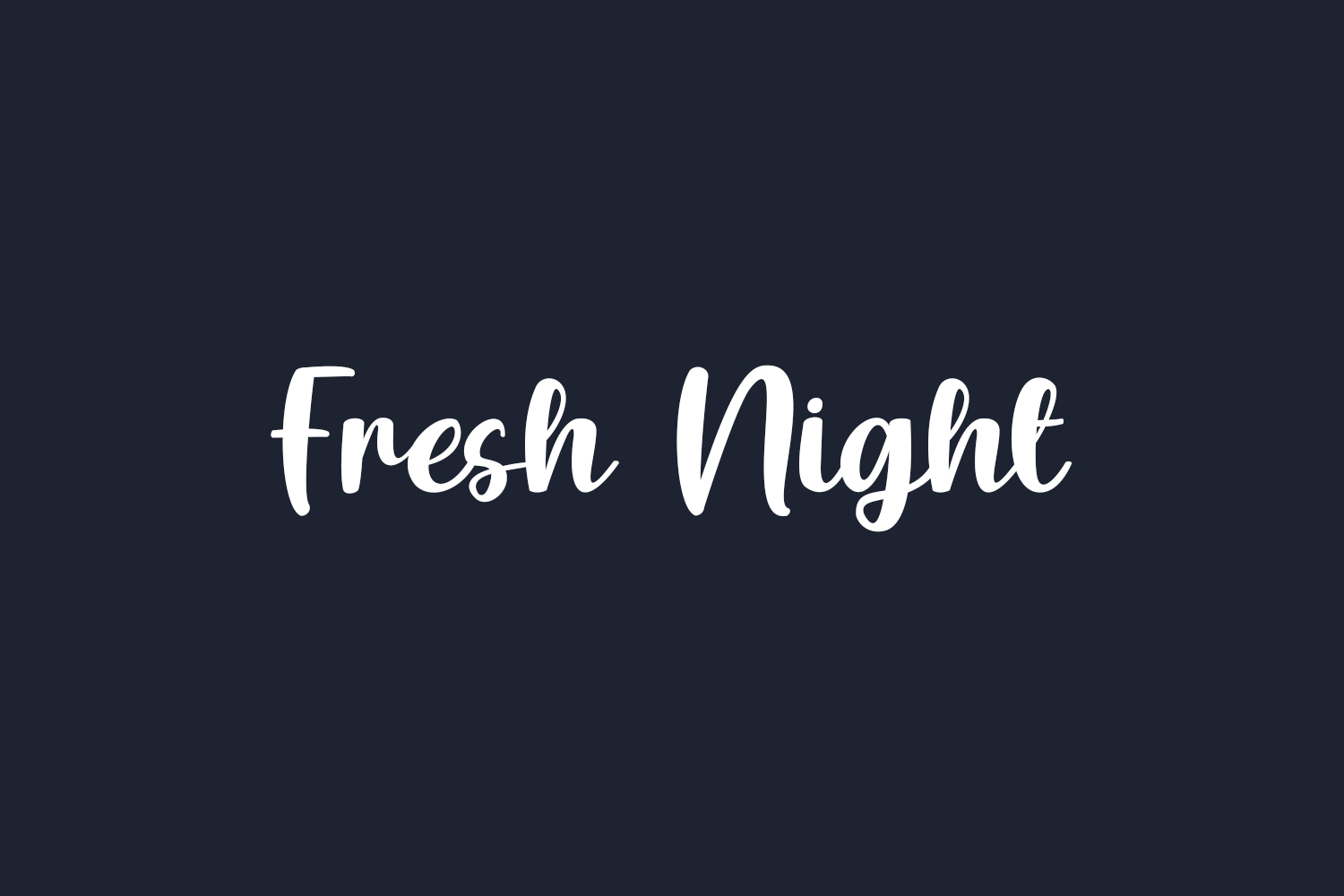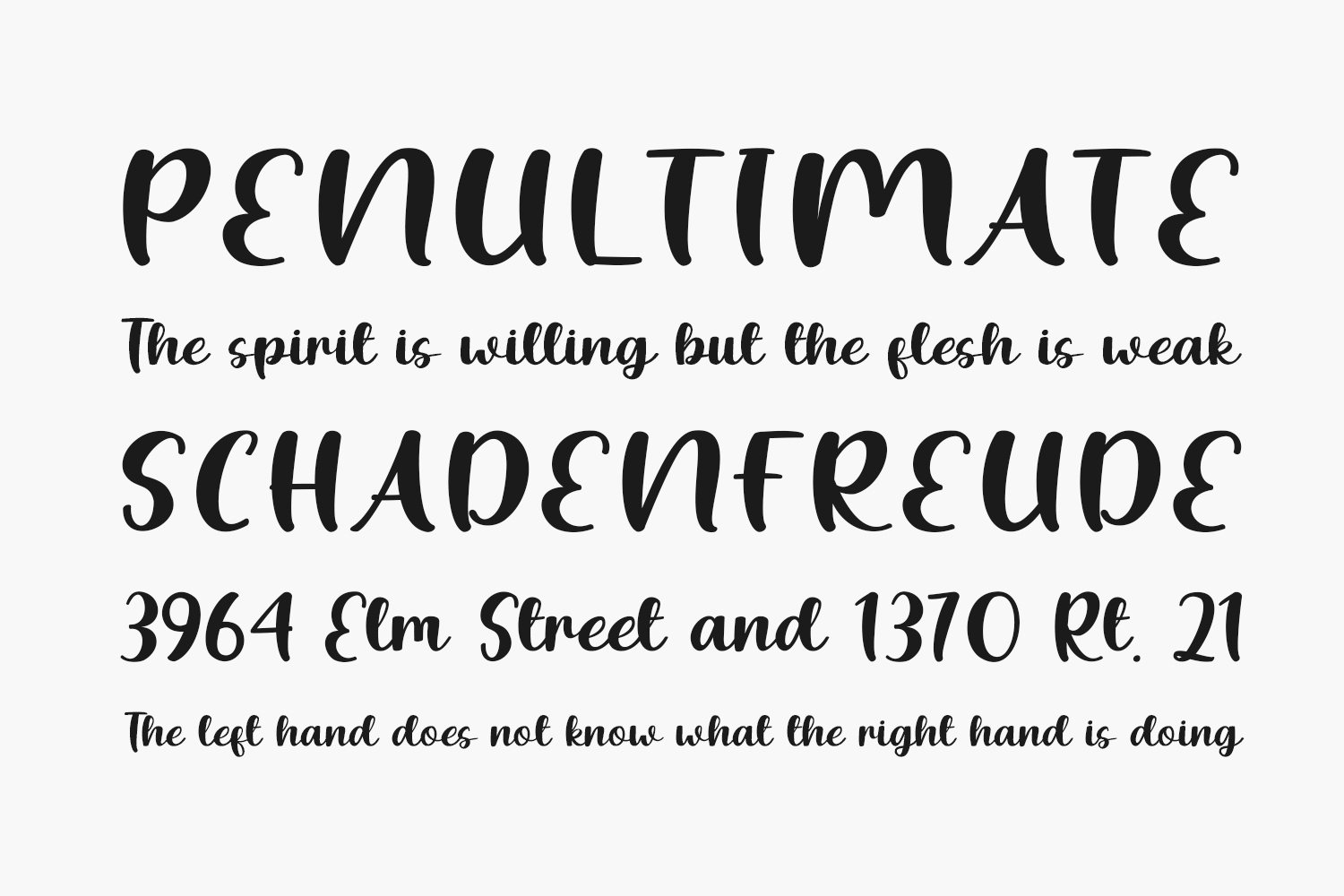
Fresh Night Free Font is a simple handwritten font that you can use for all chalkboard quotes or teaching materials! Its authentic look will add a personal and realistic feel to your designs. Download the font for free if you need it for personal use or purchase the full version for commercial use.
Designed by Rvandtype